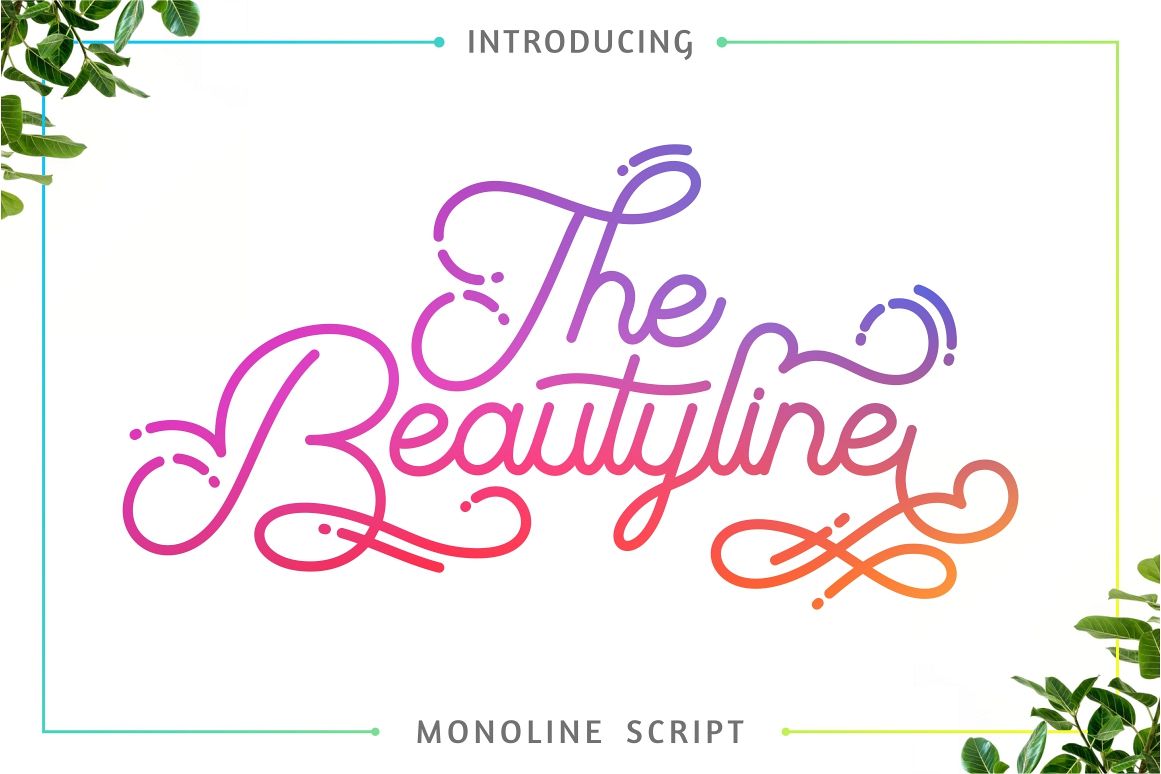
The Beautyline is a modern monoline script typeface.
Suitable for Logos, Tittle, tagline, Tshirt, Handwritten Quotes, product packaging, poster, merchandise, social media, labels, branding, greeting cards, etc.
Comes with feature :
- Alternate
- Number, Punctuation And Symbols
- Ligature
- Multilanguage Support.